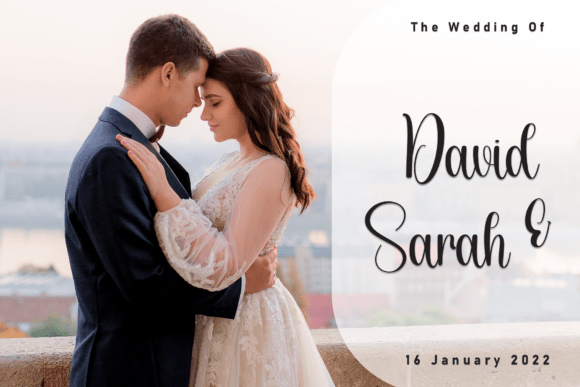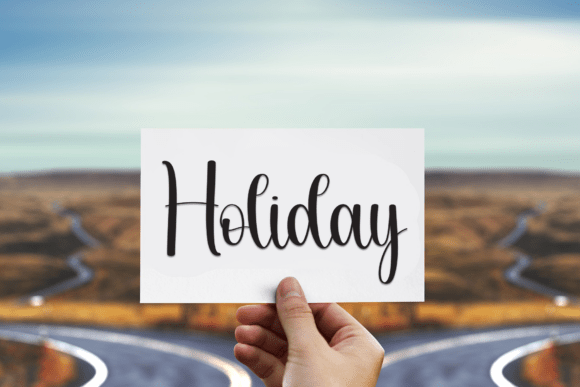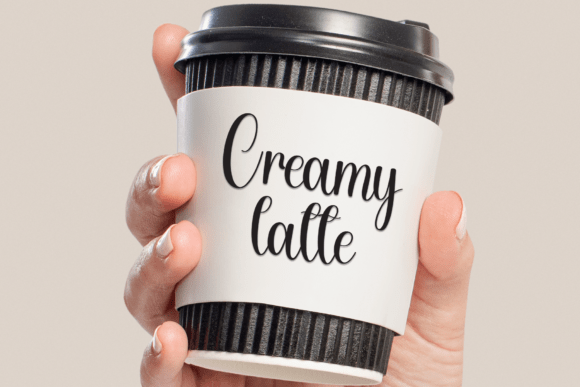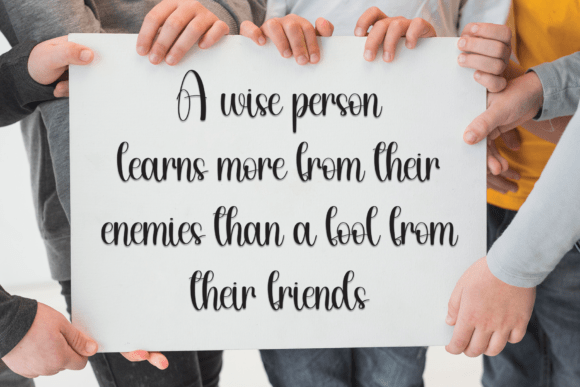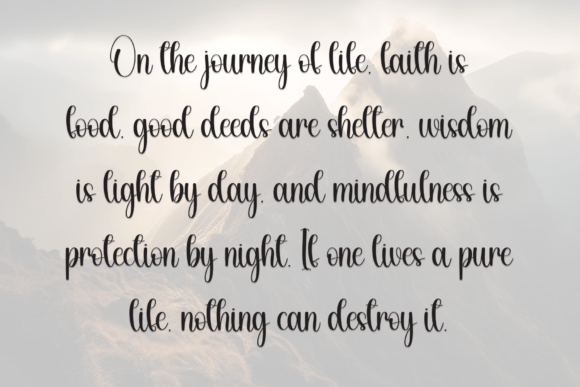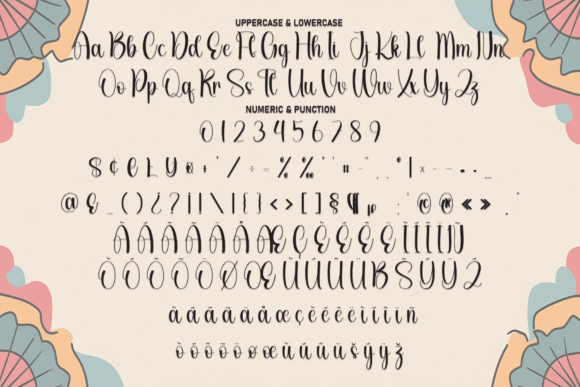
Discover the Enchanting Groovyday Font: Elevate Your Designs with a Touch of Magic
In the realm of typography, few fonts manage to capture the essence of warmth, grace, and captivating appeal as effectively as the Groovyday Font. This handcrafted typeface is a stroke of creativity that breaks the mold of traditional typography, offering a vibrant sophistication that can instantly elevate wedding invitations, mesmerizing cards, or any creative project in need of a magical touch.
The Magnetic Charm of Groovyday Font
Groovyday Font is imbued with relentless dynamism, artfully weaving itself into any design and casting sparks of irresistible pleasure. Its unique charm is designed to enthrall viewers, amplifying your design aesthetics to new heights of appeal. Whether you’re a designer looking to add a touch of elegance to your client’s wedding invitation or a crafter aiming to create mesmerizing cards, Groovyday Font promises to breathe life into your artistic pursuits.
Unleashing Creativity with Groovyday Font
This extraordinary typeface is more than just a font – it’s an experience. It invites designers and crafters to surrender to its mesmeric impact and watch as it elevates their artwork to an extraordinary level of allure. With Groovyday Font, you can:
- Add a touch of magic to your wedding invitations, making them truly unforgettable.
- Elevate your card-making skills with a font that exudes warmth, grace, and sophistication.
- Transform your creative projects into captivating works of art that leave a lasting impression.
The Benefits of Using Groovyday Font
So, what makes Groovyday Font an ideal choice for designers and crafters? Here are just a few benefits of incorporating this enchanting typeface into your work:
- Unique and Versatile: Groovyday Font is a one-of-a-kind typeface that can be used across various design projects, from wedding invitations to digital art.
- Easy to Read: Despite its creative flair, Groovyday Font remains highly legible, making it perfect for both headings and body text.
- Customizable: With its extensive range of characters and glyphs, Groovyday Font offers endless possibilities for customization.
- High-Quality: This handcrafted font is designed to deliver exceptional results, ensuring that your designs look professional and polished.
Tips for Getting the Most Out of Groovyday Font
To truly experience the magic of Groovyday Font, here are some expert tips to keep in mind:
- Experiment with Pairings: Combine Groovyday Font with complementary fonts to create visually striking headings and body text.
- Play with Size and Color: Don’t be afraid to experiment with different font sizes and colors to add depth and dimension to your designs.
- Add Decorative Touches: Take advantage of Groovyday Font’s extensive range of glyphs and characters to add decorative touches to your designs.
In conclusion, Groovyday Font is a game-changer for designers and crafters looking to elevate their work with a touch of magic. Its unique blend of warmth, grace, and captivating appeal makes it the perfect choice for wedding invitations, mesmerizing cards, or any creative project craving a touch of sophistication. With its versatility, readability, and customizability, Groovyday Font promises to breathe life into your artistic pursuits, enthralling viewers and amplifying your design aesthetics to new heights of appeal.